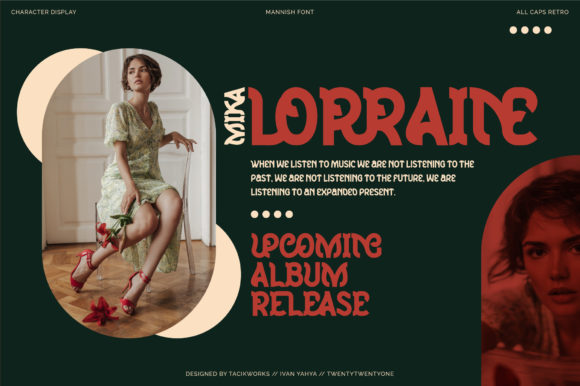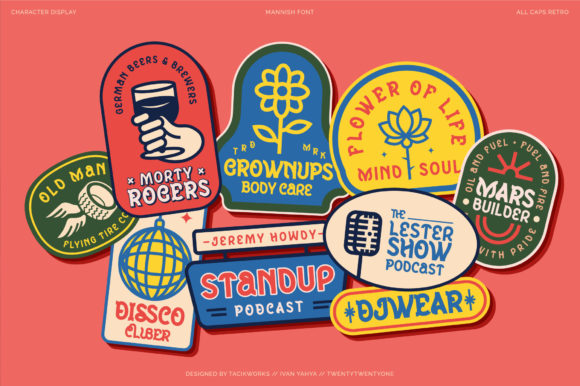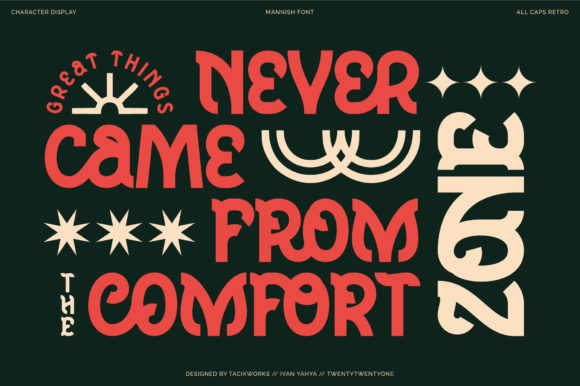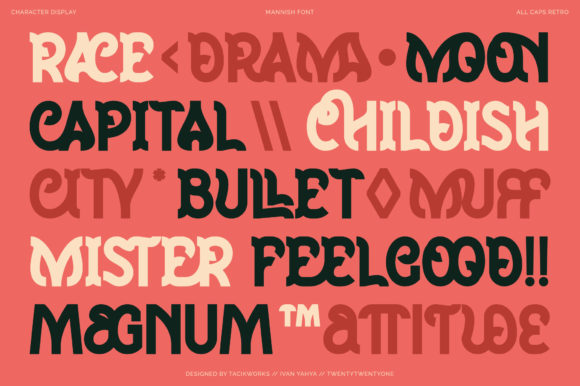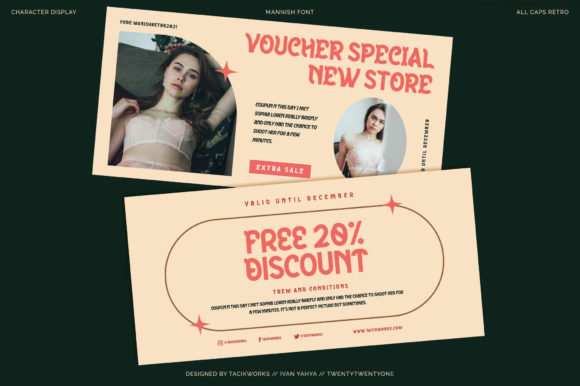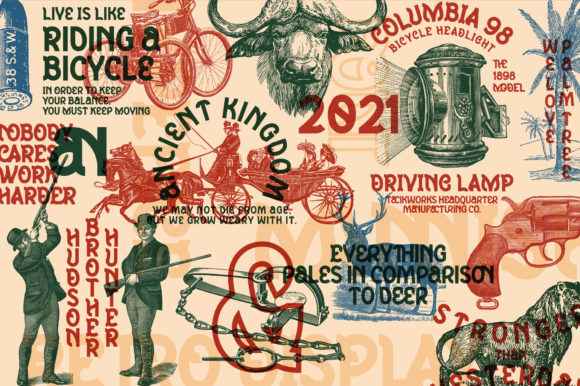
Introduction to Mannish Font
Do you remember that moment when you stumbled upon the perfect font for your creative project? The one that made everything fall into place and took your design to the next level? For designers, finding the right font can be a game-changer. And today, we’re excited to introduce you to Mannish Font, a cool display font that’s about to become your new best friend.
With its unique style and versatility, Mannish Font is a valuable addition to any design resource. Whether you’re working on a logo, a poster, or a digital product, this font is sure to add a touch of elegance and sophistication. Plus, it’s PUA encoded, making it easy to access all the glyphs and swashes you need to create stunning designs with a transparent background.
Mannish Font Key Features
- Unique, hand-drawn design ideal for creative projects requiring a personal touch.
- Supports a wide range of languages, including Latin, Cyrillic, and Greek alphabets, making it a great choice for multilingual projects.
- Designed to be highly legible, even at small font sizes, making it perfect for titles, headings, and body text.
Honest Review: Mannish Font
I recently stumbled upon the Mannish Font, and I must say it’s been a game-changer for my design projects. As a designer, I’m always on the lookout for high-quality design resources that can elevate my work and make it stand out.
What works well about the Mannish Font is its unique, vintage aesthetic. The font is perfect for creative projects that require a touch of nostalgia and elegance. I’ve used it for several designs, and the results have been impressive. The font is also available for free download, which is a huge plus.
The Mannish Font is available with a transparent background, making it easy to integrate into any design. I appreciate the level of detail and care that has gone into creating this font. Overall, I’d highly recommend the Mannish Font to anyone looking for a high-quality design resource.
What I Like:
- Unique, vintage aesthetic
What Could Be Improved:
- Limited character set (⚠️)
- May not be suitable for modern or minimalist designs (⚠️)
Overall, I’m impressed with the Mannish Font and would definitely use it again in the future. It’s a great addition to any designer’s toolkit, and I’m glad I stumbled upon it.
How to Use Mannish Font
The Mannish Font is a unique and elegant design resource that can elevate any creative project. With its high-quality and versatile style, it’s perfect for designers, artists, and writers looking for a distinctive font.
To get the most out of the Mannish Font, experiment with different font sizes, colors, and combinations. You can also use it in conjunction with other design elements, such as graphics and textures, to create a unique visual style.
The Mannish Font is perfect for:
- Artistic and creative projects